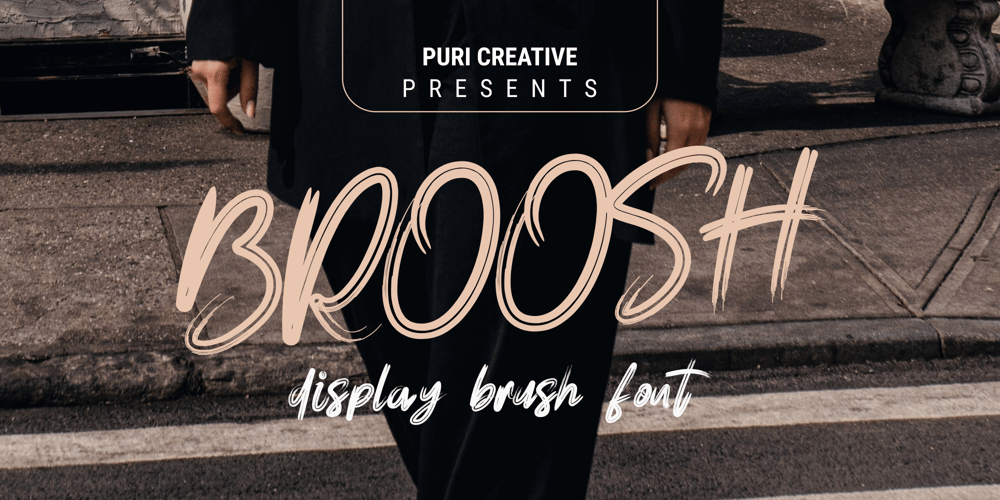
Broosh
Broosh font
Broosh Font Family was designed by Bina Cipta Wicaksana Hg and published by Puri Creative. Broosh contains 1 styles and family package options. introducing our new font “BROOSH”. A quick handwriting font, BROOSH made with a Brush Pen. BROOSH is a display brush Font which has many purpose and suitable for movie, movie poster, modern, poster, advertising and much more.Features : Uppercase & lowercase Numbers and punctuation Multilingual We highly recommend to access all OpenType Stylistic, you need a program that supports OpenType features such as Adobe Illustrator, Adobe Photoshop, CorelDraw and Microsoft word.Thank you.